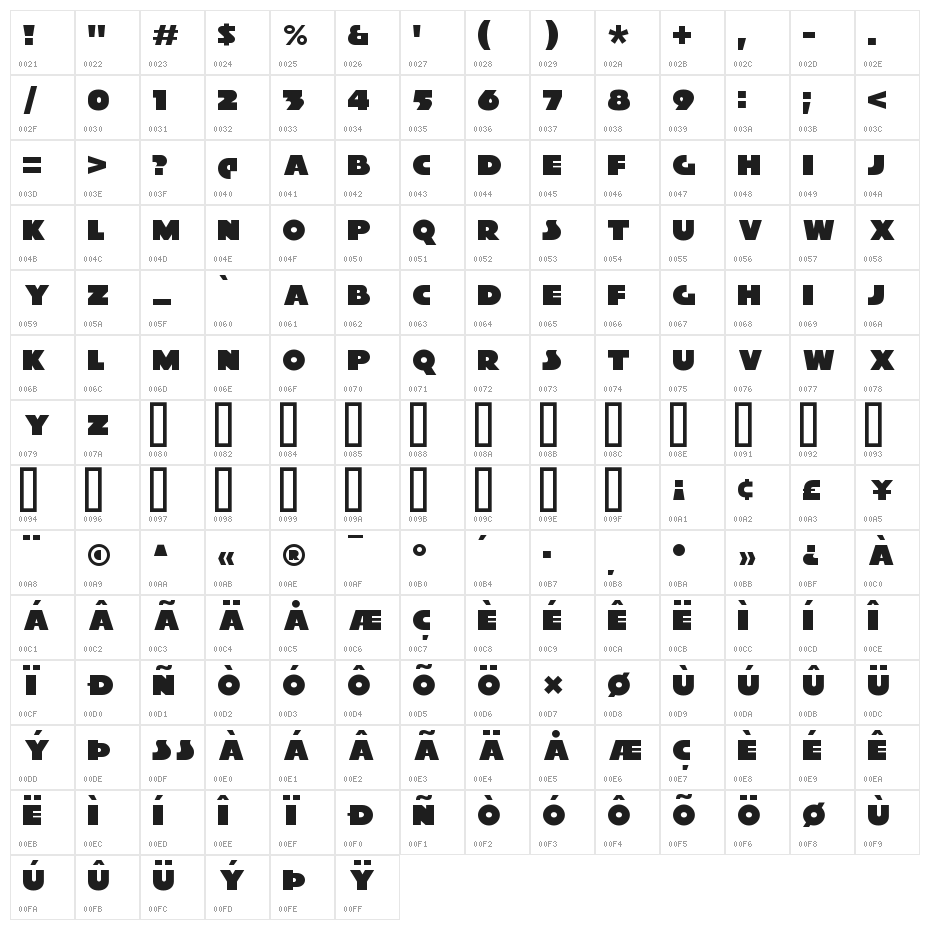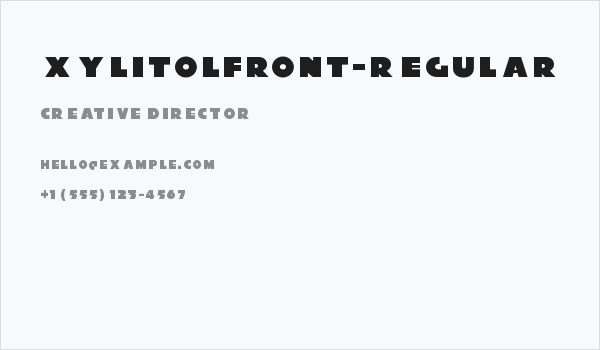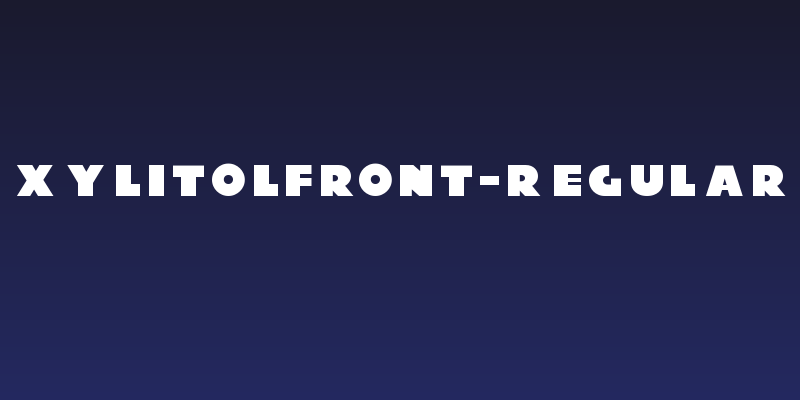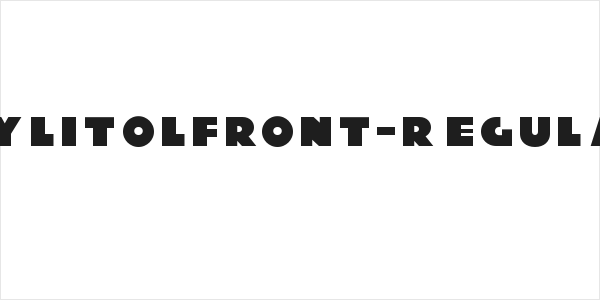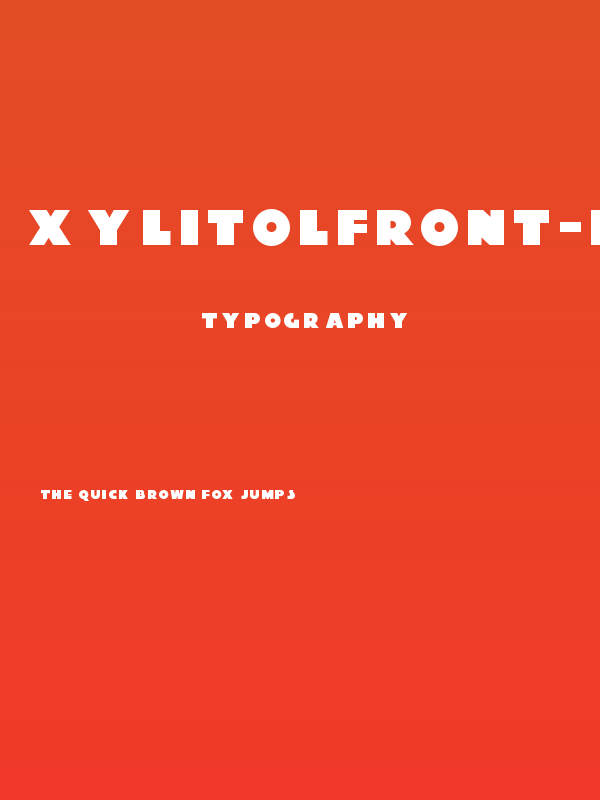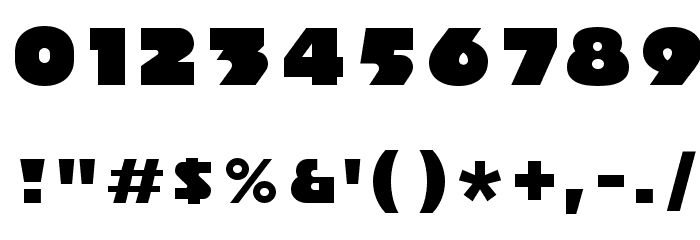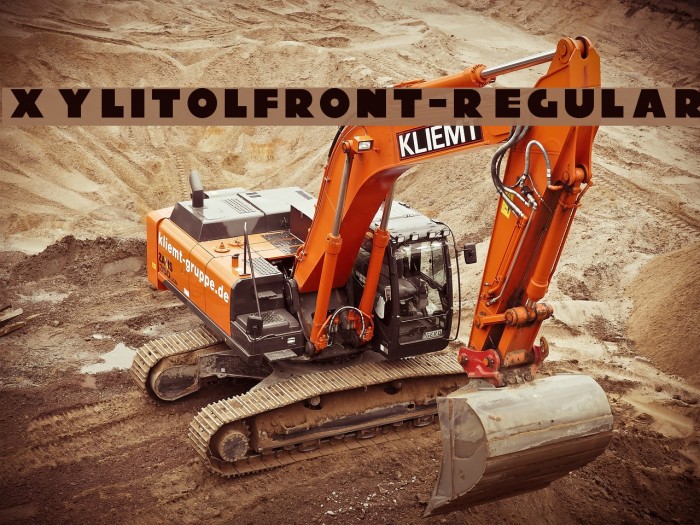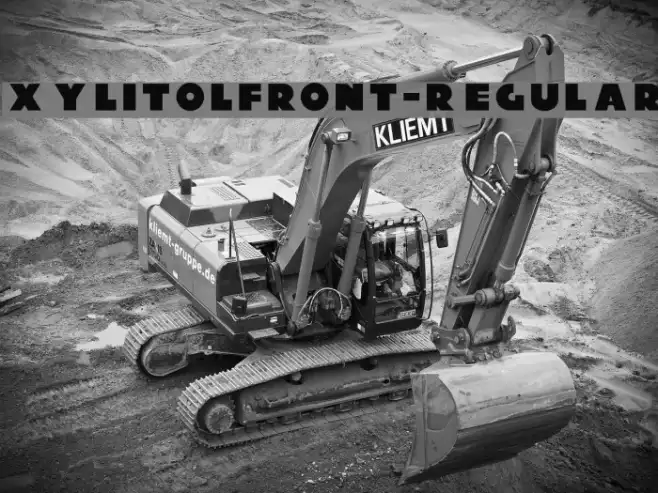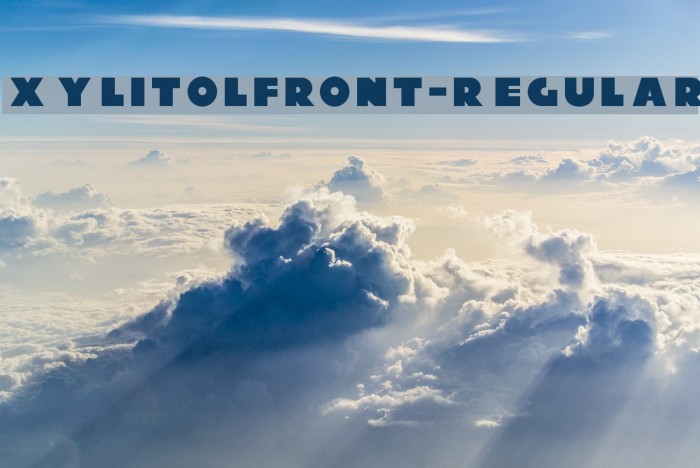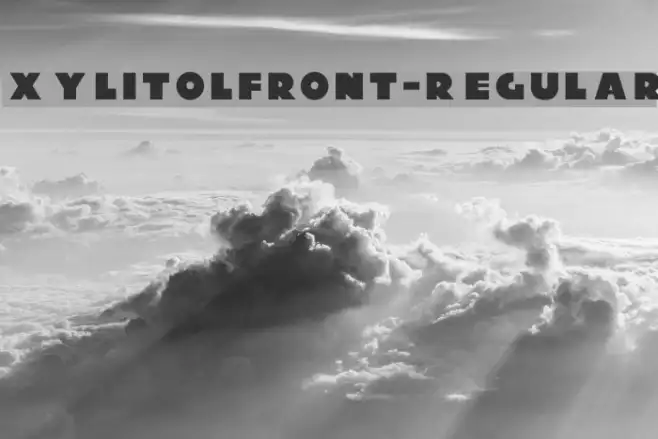
XylitolFront-Regular Font
XylitolFront-Regular Description
This font features bold, geometric shapes with a strong presence. The characters are designed with a modern flair, showcasing thick strokes and rounded edges that create a sense of stability and confidence. The uppercase letters are particularly striking, with a uniform height and width that contribute to a cohesive look. The lowercase letters maintain the same boldness, ensuring readability and consistency across different text sizes. Numbers and special characters are equally robust, making them suitable for various applications. The overall design is clean and impactful, ideal for making a statement.
| Proposed Projects | Ideal for branding, headlines, posters, and any design requiring a bold statement. |